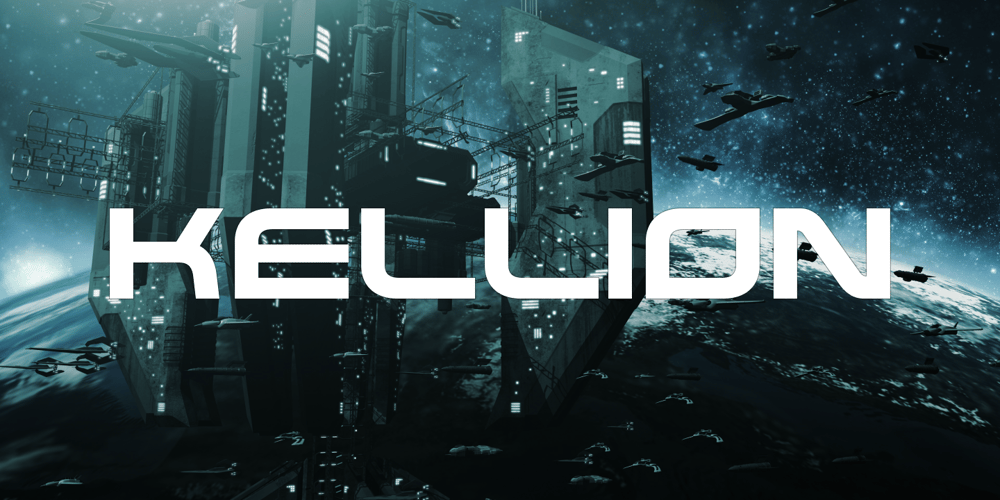
Kellion Font Family was designed by Eugene Bunin and published by Harvester Type. Kellion contains 5 styles and family package options. Kellion is a futuristic font that is inspired by science fiction and created to help convey the spirit of sci-fi in your design. The font, when used correctly, can convey brutalism with cyberpunk, wariness and concern, just like the game’s cover itself.Font for posters, covers, logos, headlines, banners, and special products. It has great language support and well-placed kerning.